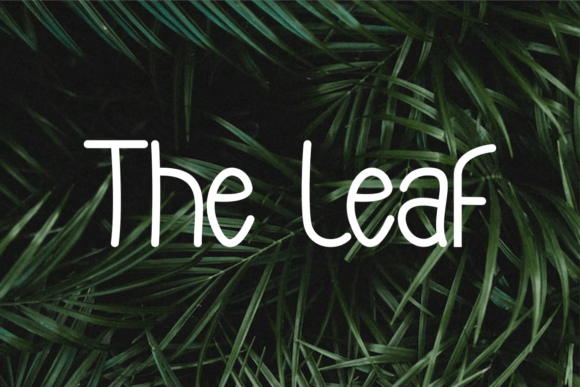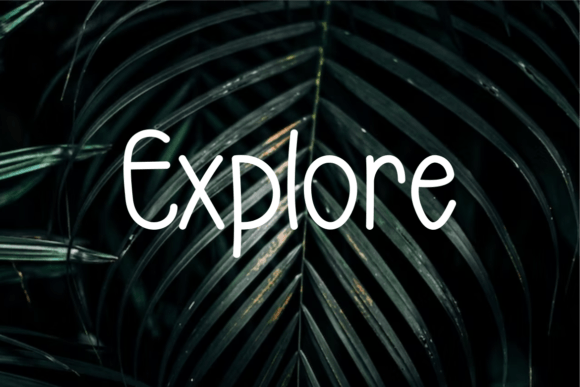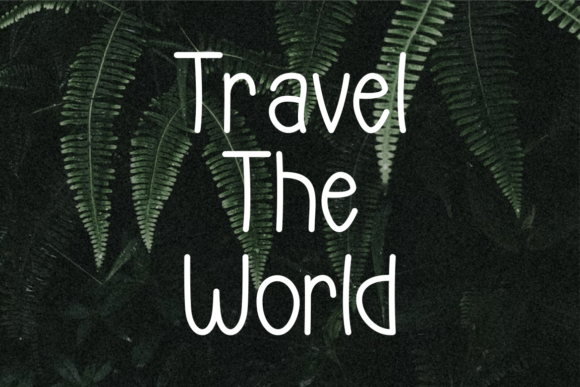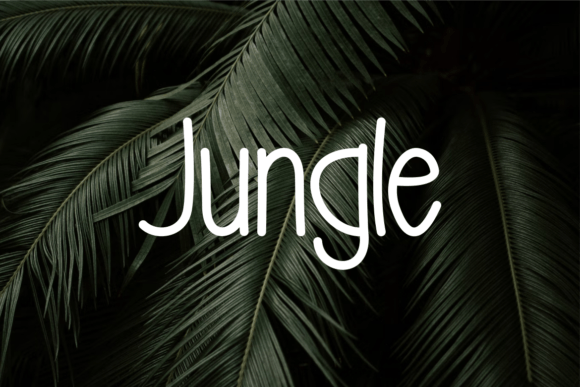
About Thebluksuk Font
Introducing “TheBluksuk,” a charming handwritten font that exudes beauty, class, elegance, and modernity. This font is a versatile gem, well-suited for an extensive range of creative projects, including signatures, stationery, logos, weddings, typography quotes, magazine or book covers, website headers, clothing designs, branding, packaging, and beyond.
“TheBluksuk” is not just a font; it’s a design element that adds a touch of timeless grace to your creative endeavors. Its graceful strokes and contemporary character make it an ideal choice for designers seeking to infuse their projects with beauty, sophistication, and a hint of modern flair.
One of the standout features of “TheBluksuk” is its adaptability. Whether you’re crafting a signature logo for a luxury brand, designing wedding invitations that radiate elegance, or creating a chic clothing label, this font seamlessly integrates into various design contexts, enhancing each project with its distinctive charm.
This font’s appeal extends effortlessly from print to digital media. From the pages of a magazine to the pixel-perfect web interface, “TheBluksuk” shines brilliantly in every setting. Its impeccable readability ensures that your message is communicated with clarity and effectiveness, while its inherent beauty adds an irresistible visual allure.
What truly sets “TheBluksuk” apart is its ability to evoke a sense of modern elegance. It’s a font that encapsulates the essence of beauty and class while maintaining a contemporary edge. With “TheBluksuk” as part of your design toolkit, you have the creative freedom to bring your unique ideas to life in a way that captivates your audience.
Furthermore, “TheBluksuk” offers a wide array of customization options, allowing you to tailor your text to perfectly align with your creative vision. This flexibility empowers you to create designs that are as unique as your artistic imagination.
In conclusion, “TheBluksuk” is not just a font; it’s a design asset that elevates your creative projects to new heights of elegance and modernity. Embrace its lovely handwritten style and let it inspire you to craft stunning and sophisticated designs that leave a lasting impression. With “TheBluksuk” by your side, your creative possibilities are boundless, allowing you to create works of art that are as beautiful as they are classy and elegant.